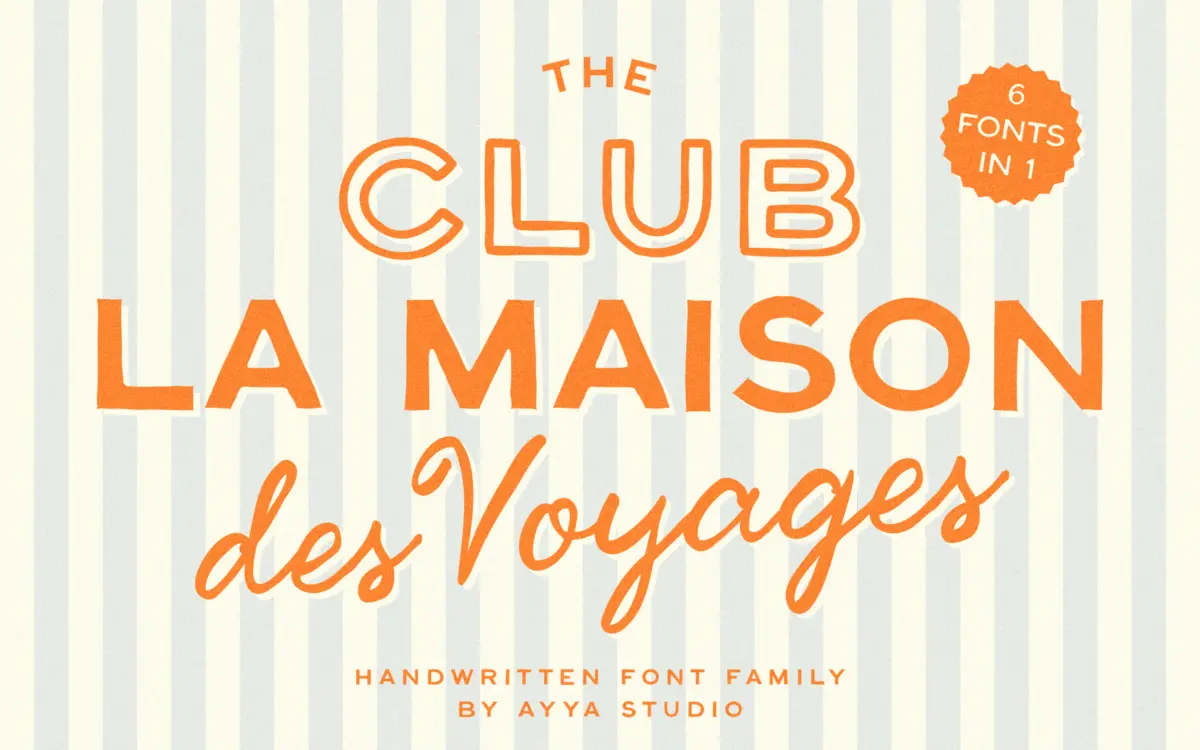
This is a family built around a mood rather than a single letterform idea. The brief points to old travel-agency signage, beach-club menus and postcards printed a little off-register, and the drawing follows through on that: strokes wobble slightly, terminals don’t quite close, and the baseline drifts by design rather than accident. It reads as hand-lettered first, typeface second, which is exactly the point of a set like this. Nothing here is trying to be a clean grotesque or a formal script — the imperfection is the feature.
Six styles ship in the pack: a script, a slanted variant of that script, a bold sans, a regular sans, and outline versions of both sans weights. The sans styles carry the bulk of the personality — thick, slightly uneven strokes with rounded corners that feel painted rather than vectored. The script is looser, closer to a felt-tip signature than a formal cursive, and it’s clearly meant as an accent rather than a body-text option. The outline weights are the more interesting inclusion; they give you a lighter-touch version of the same shapes without switching families, which is handy for layering.
As a hand-drawn display set, the character coverage is aimed at short bursts of text — headlines, single words, quotes — rather than paragraphs. The irregularity that makes individual letters charming becomes harder to track once you’re reading more than a line or two; that’s a structural limit of the style, not a flaw in the drawing. The sans weights hold up better at small sizes than the script does, since their strokes are chunkier and the counters stay open even when the imperfect edges kick in.
Having script, slanted script, bold sans, regular sans and two outline variants in one purchase means you get real range without hunting for a companion face — the family is built to be mixed with itself, sans for structure and script for emphasis, and that internal logic mostly works because the stroke weight and looseness feel consistent across the set. Language support and specific OpenType features (ligatures, alternates) aren’t detailed in what’s provided, so treat the set as a solid basic Latin character range rather than assume extended glyph coverage.
This is a poster and packaging font before it’s anything else. Beach-club menus, market signage, tote bags, summer sale graphics, Instagram quote cards — anywhere you want the feeling of something stamped or brushed by hand rather than typeset. The outline weights are worth reaching for on busy backgrounds or photo overlays, where a solid fill would compete with the image; the outline gives you the same character with less visual weight.
It’s less suited to anything that needs to read as trustworthy or formal — a law firm’s letterhead, an annual report, dense body copy of any kind. The script in particular should stay short: a headline, a signature line, a single word of emphasis. Used that way, alongside the sans styles for structure, the family does what it sets out to do — warm, slightly rough, summer-holiday branding — without pretending to be a workhorse text face.
- Six coordinated styles (script, slanted script, two sans weights, two outlines) that genuinely mix well together
- The outline weights give useful lighter-touch options without switching families
- Consistent hand-drawn character across weights makes the imperfection feel intentional rather than random
- The script and irregular strokes make anything longer than a line or two hard to read comfortably
- Character set and language coverage aren't specified, so extended glyph needs should be checked before committing to a project
A charming, mood-driven family that does one job well: warm, slightly rough summer and coastal branding in short bursts of text. It's not built for reading paragraphs, and the script needs a light hand, but the six coordinated styles give a lot of mileage for posters, packaging and social graphics.